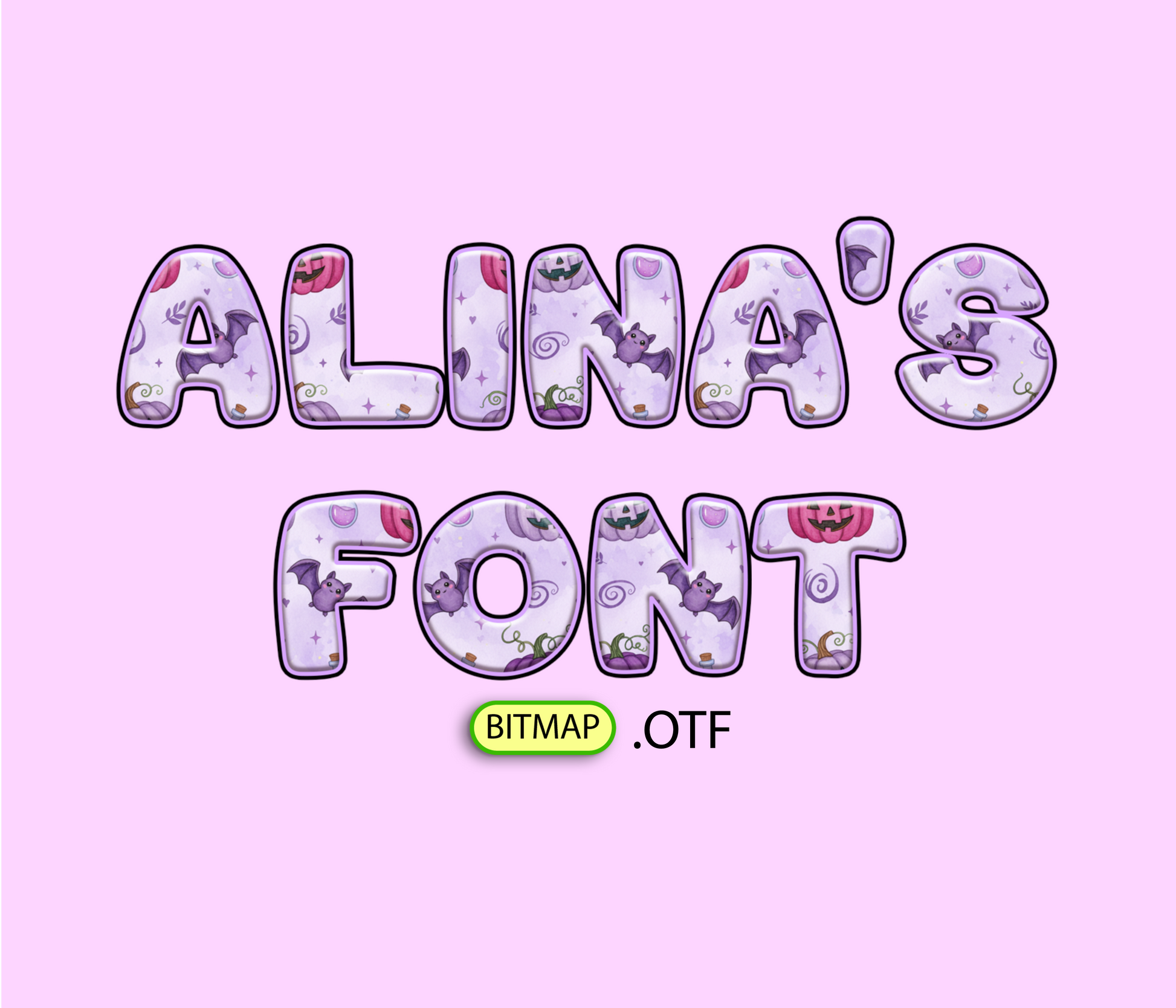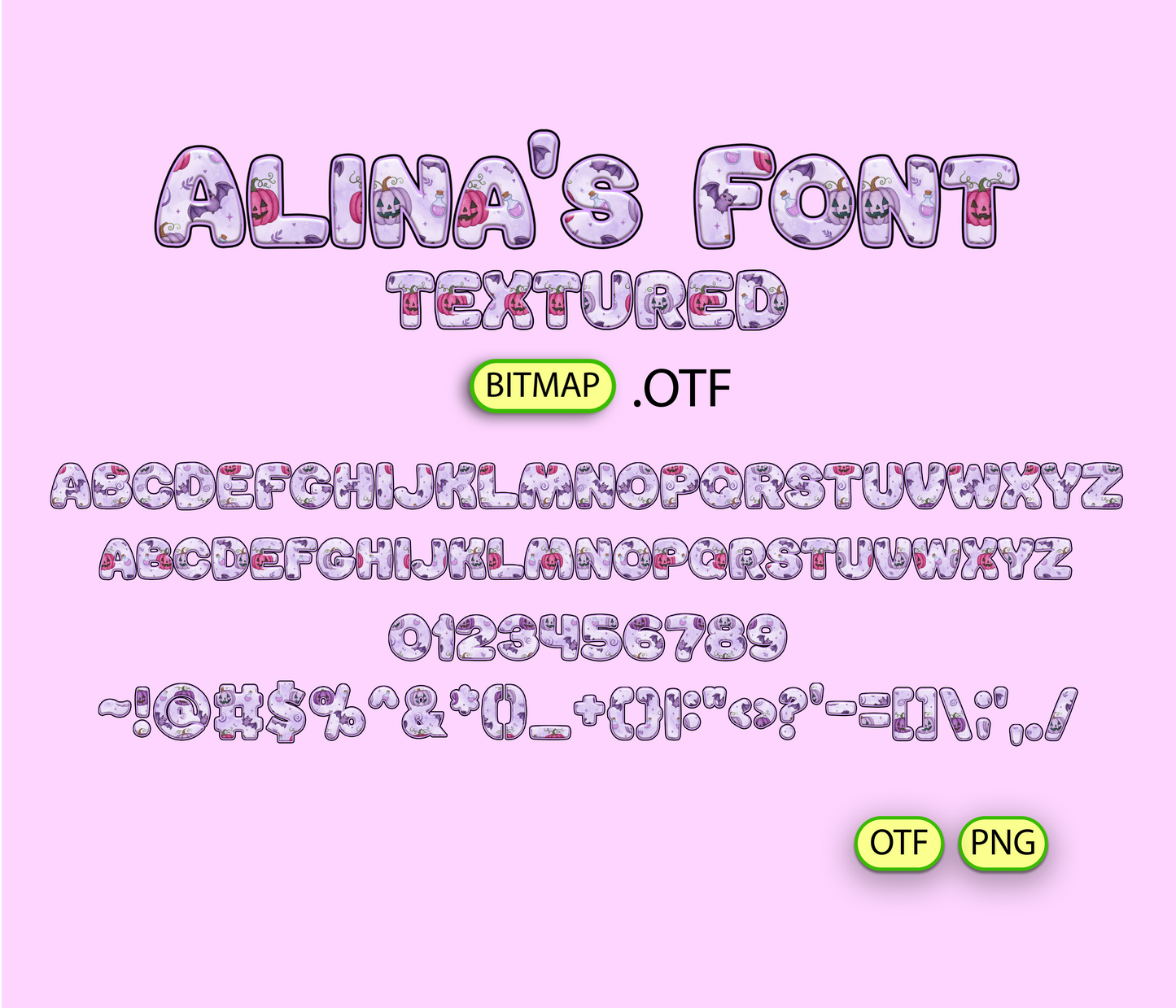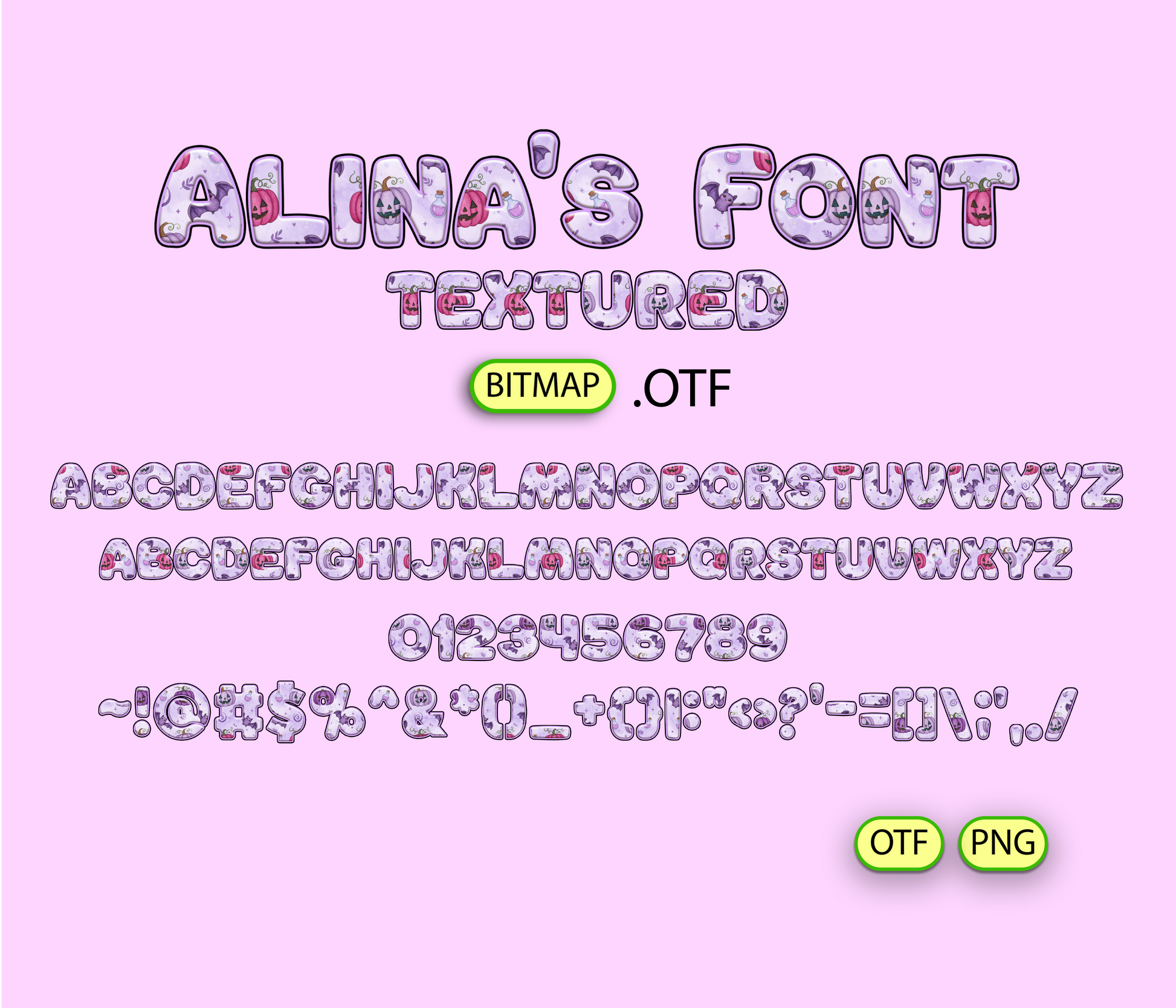
Pumpkin Glow Halloween Pattern Font
Step into the enchanting world of spooky celebrations with our Pumpkin Glow Halloween Pattern font, capturing the essence of jack-o'-lanterns and autumn festivities. Perfect for Halloween fans, seasonal creators, event organizers, and designers, this font brings the glowing, festive spirit of carved pumpkins to your projects. Create bewitching materials, merchandise, or digital content with the magical energy of Halloween traditions.
Our Pumpkin Glow Halloween Pattern font features illuminated, carved lines and festive characters reflecting the world of spooky celebrations. Ideal for:
- Event Promotions: Create haunting invites, posters, and banners for Halloween parties, fall festivals, and trick-or-treat gatherings that capture the spirit of glowing jack-o'-lanterns
- Merchandise Design: Perfect for t-shirts, posters, and accessories that showcase the festive aesthetic of carved pumpkins and autumn magic
- Digital Media: Enhance websites, blogs, and social media with glowing headers and graphics that express the charm of Halloween traditions
- Seasonal Content: Add authentic flair to decorations, party projects, and creative designs inspired by spooky pumpkin tales
- Personal Projects: Bring eerie excitement to scrapbooking, DIY crafts, and home decor inspired by the world of Halloween celebrations
Our font pays tribute to the iconic world of Halloween festivities, empowering your designs with its glowing and festive spirit. Whether crafting promotional materials, designing merchandise, or adding a spooky touch to personal projects, this font communicates the enchanting essence of jack-o'-lantern celebrations. Ready to inject Halloween magic into your creations? This font is your key to exciting, impactful design.